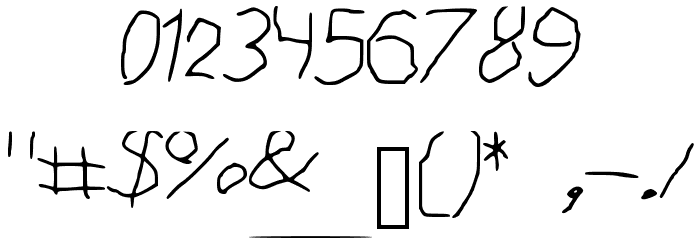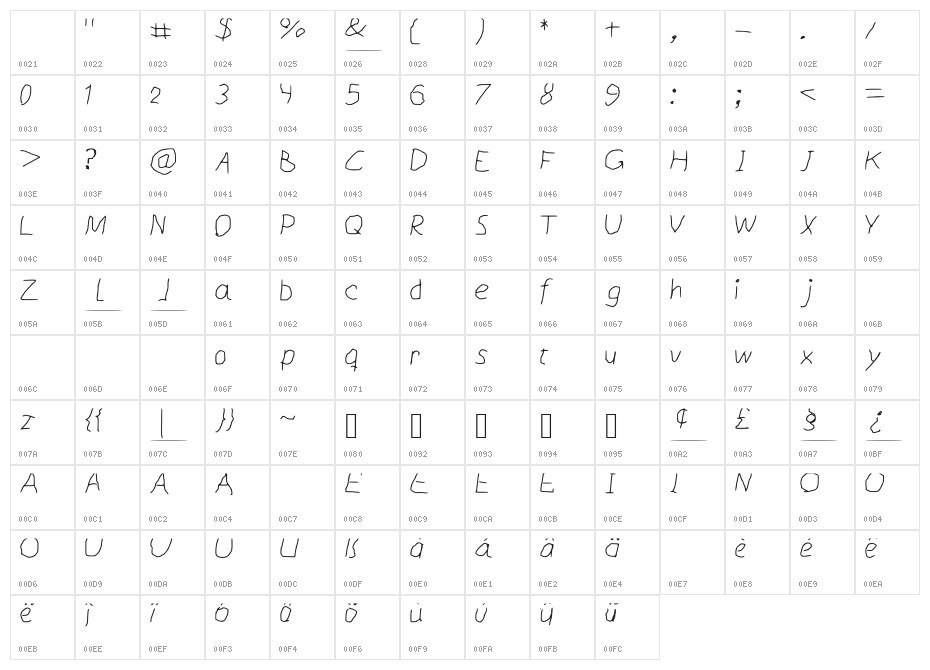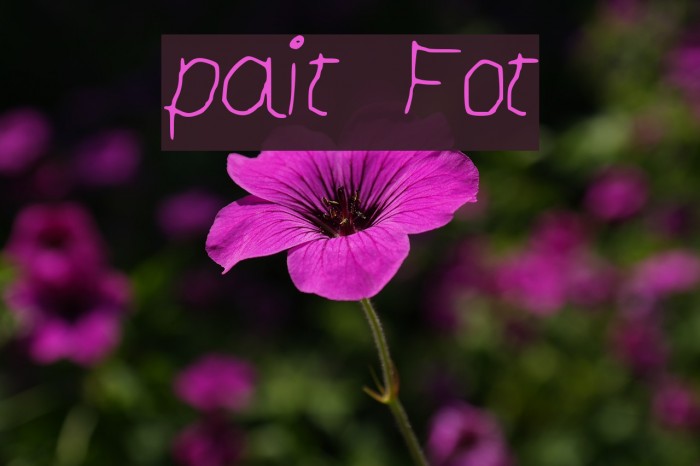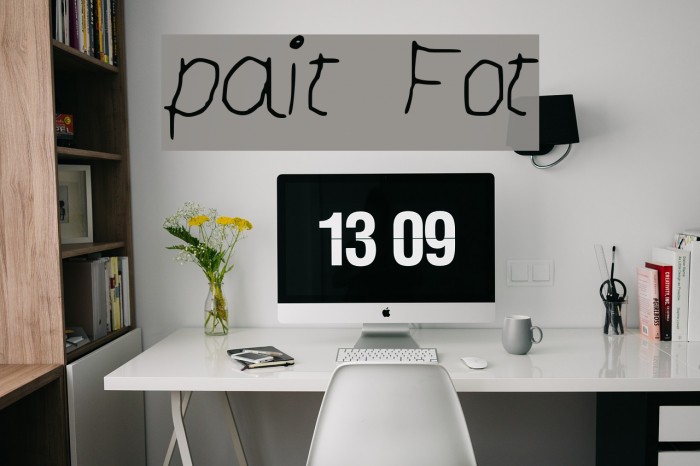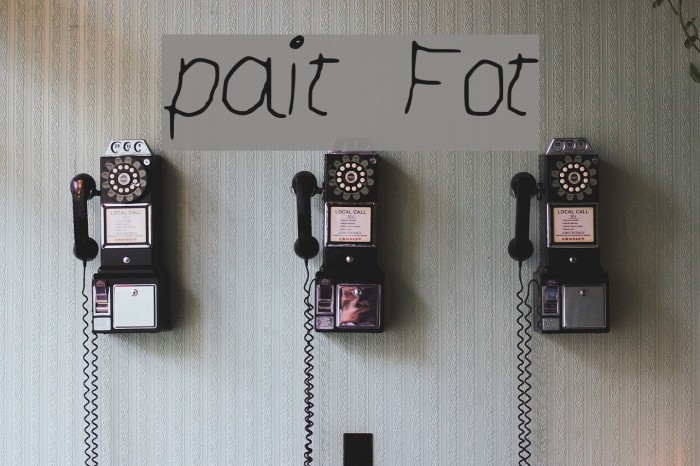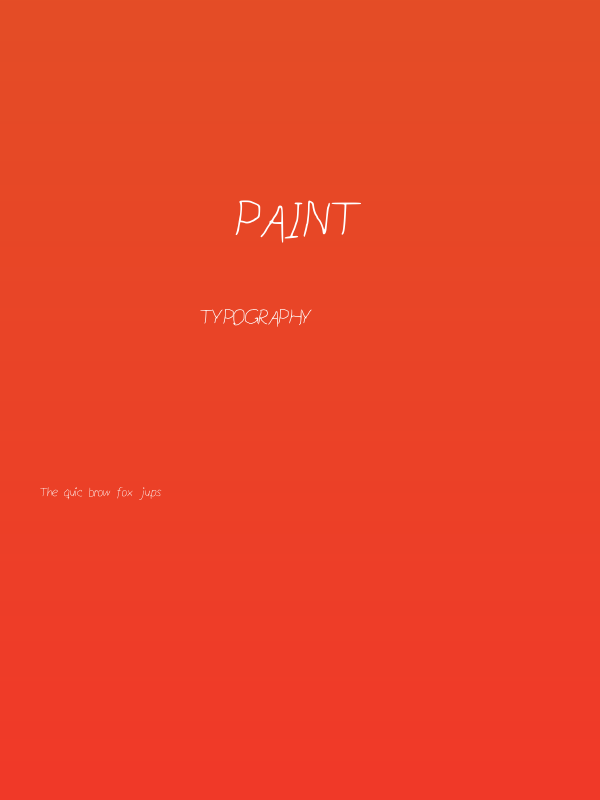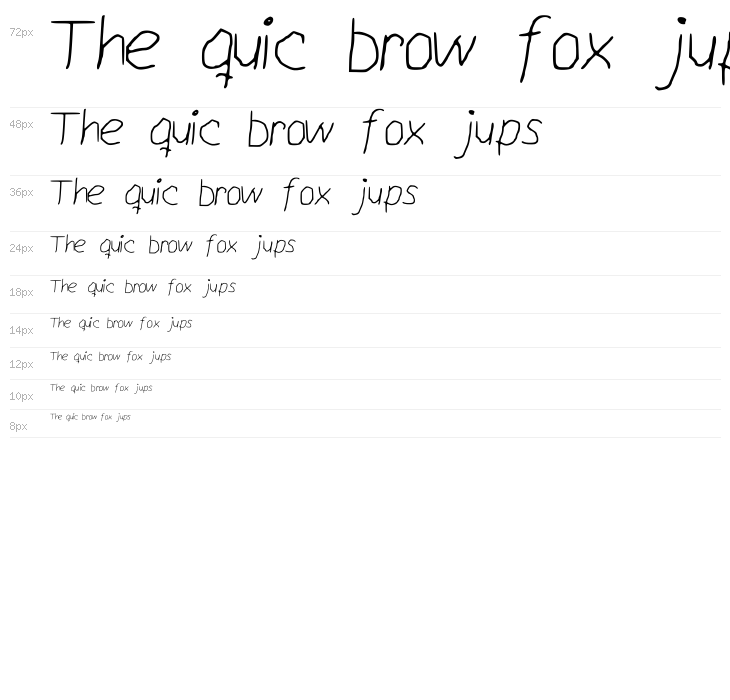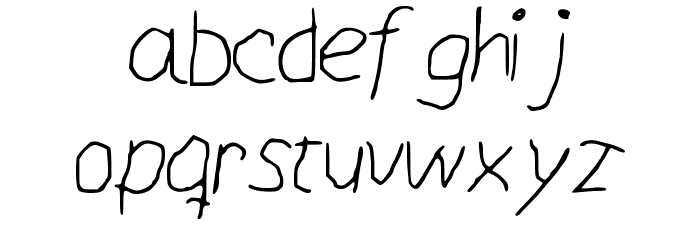
paint Font
paint Description
This font features a playful and informal handwritten style, characterized by its irregular strokes and casual appearance. The letters are slightly uneven, giving it a personal and authentic feel, reminiscent of a quick sketch or doodle. The uppercase and lowercase letters maintain a consistent flow, while the numbers and special characters complement the overall aesthetic. The font's charm lies in its simplicity and the organic, freeform nature of its design, making it ideal for projects that require a touch of whimsy and creativity.
| Use Case | Headlines, Informal Text, Creative Projects |
| Proposed Projects | Ideal for greeting cards, children's book illustrations, casual invitations, and creative social media graphics. |